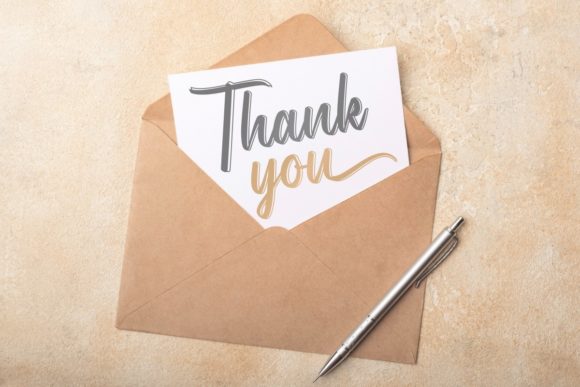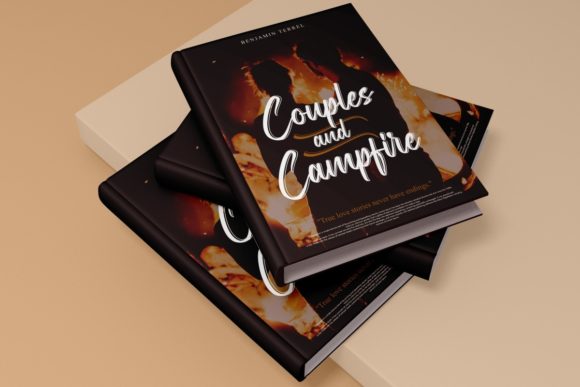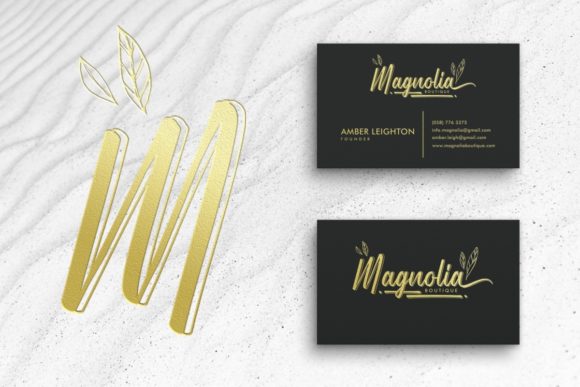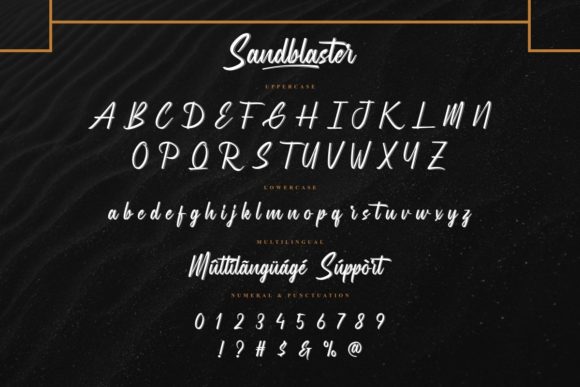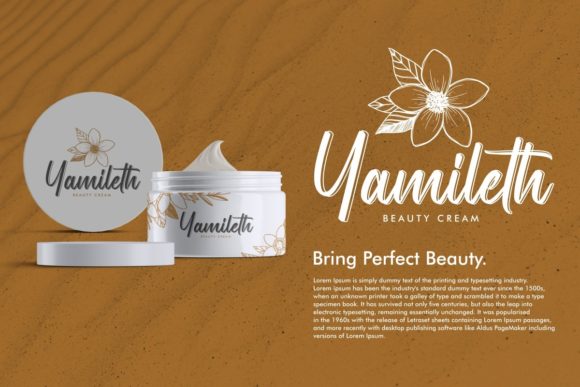
Sandblaster Font
About Sandblaster Font
Sandblaster is a modern brush script font that can add a personal touch to any crafty idea! Use if dor projects that need a stylish and handmade feel, such as invitations, personal branding, birthday cards, or more. This font is PUA encoded which means you can access all of the glyphs and swashes with ease!